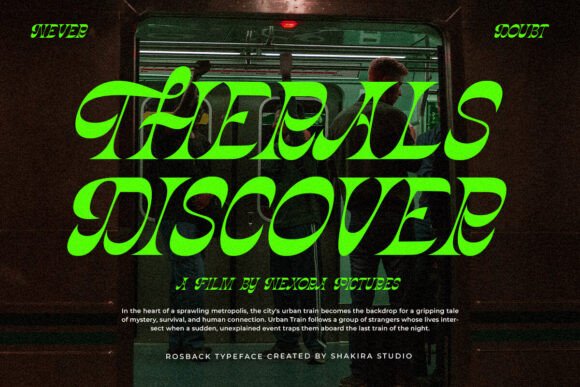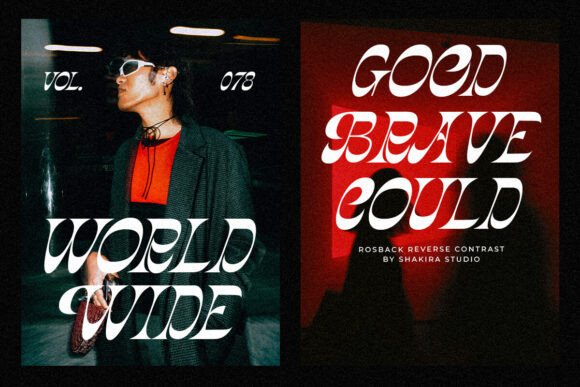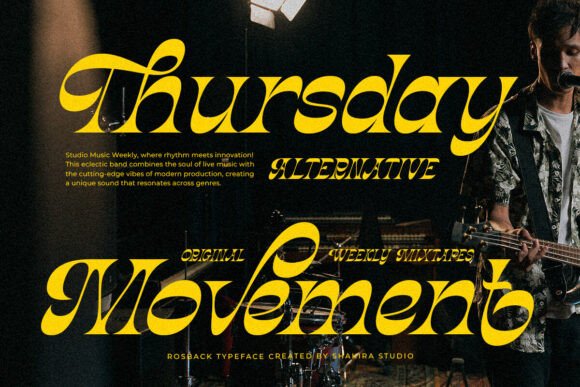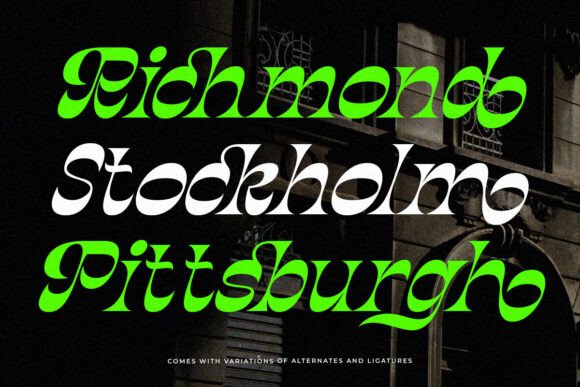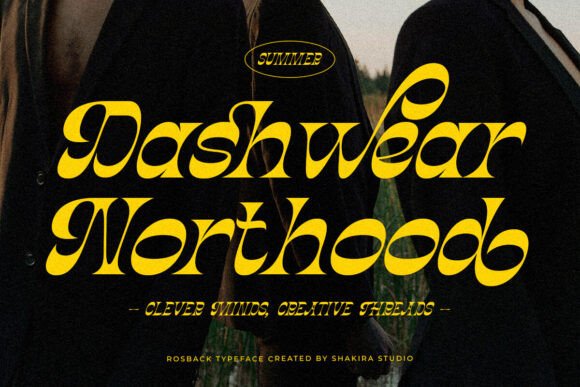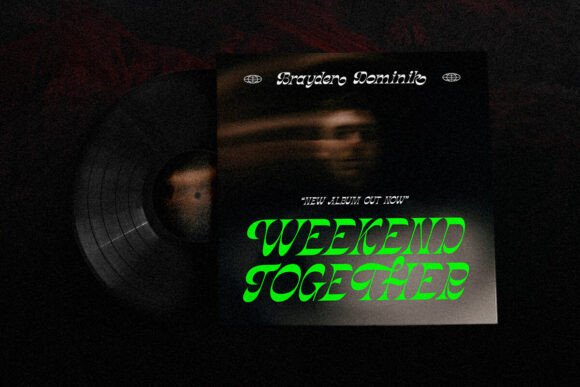
Introduction to Rosback Font Font
Fonts play a crucial role in design, and the Rosback Font font is a typeface that brings both character and versatility to any project. Whether you’re working on a branding project, a website, or a print design, the Rosback Font font offers a unique style that can elevate your work.
Rosback – Stylish Reverse Contrast Display Serif Rosback is a display serif font with a unique reverse contrast, delivering a distinctive and elegant look.
Equipped with alternates and ligatures, this font offers exceptional flexibility in design Perfect for branding, posters, magazines, product packaging, and various print designs that require a modern vintage touch with a strong character.
Key Features of Rosback Font Font
Why Choose Rosback Font Font?
The Rosback Font font is more than just a typeface – it’s a design tool that helps you communicate your message with style and clarity. Its unique character set and versatile design make it suitable for a wide range of applications, from elegant invitations to bold headlines.
With its carefully crafted letterforms and balanced proportions, the Rosback Font font ensures readability and visual appeal across all mediums.
What makes Rosback Font font special?
The Rosback Font font stands out with its unique design, exceptional readability, and versatility across various design applications.